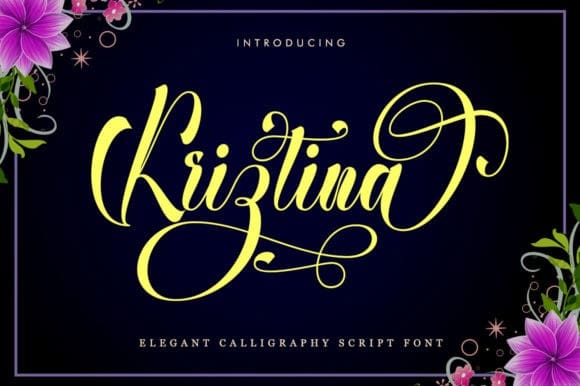
Kriztina Font
Kriztina Font, is a modern calligraphy font with a gorgeous style. This font is perfect for branding, wedding invites, magazines, mugs, business cards, quotes, posters, and more creative ideas.